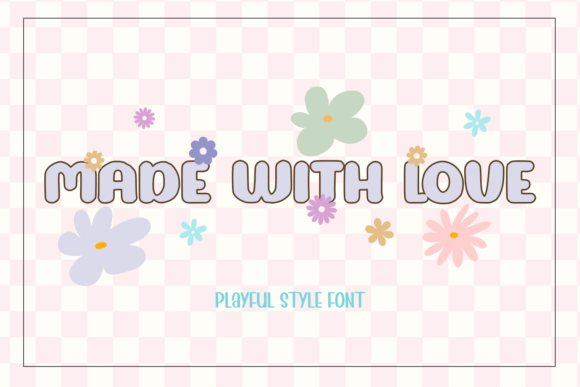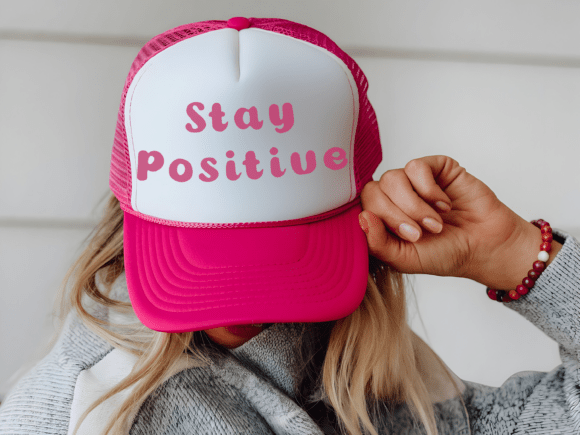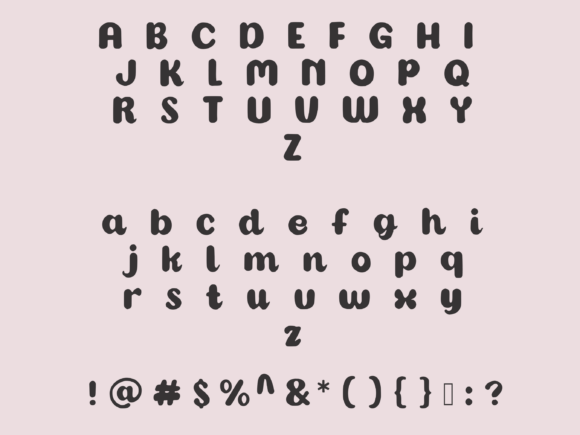
Introducing Cloud Sonata Font: A Groovy Display Font with a Retro Twist
Are you a designer or crafter looking for a font that captures the essence of retro flair and gentle elegance? Look no further than Cloud Sonata Font, an artistic groovy-style display font that’s sure to transport you back to the 1970s. With its rounded, flowing letterforms and whimsical rhythm, Cloud Sonata is the perfect addition to any design project that requires a touch of nostalgia and playfulness.
The Inspiration Behind Cloud Sonata
Cloud Sonata Font is inspired by the iconic album covers of the 1970s, with its psychedelic funk and soft femininity. The font’s creator aimed to capture the essence of hazy sunsets, handwritten love notes scrawled on vinyl sleeves, and the carefree spirit of the era. The result is a font that’s both nostalgic and newly alive, perfect for designers and crafters who want to add a touch of retro charm to their work.
Key Features of Cloud Sonata Font
So, what makes Cloud Sonata Font so special? Here are some of its key features:
- Rounded, flowing letterforms: Cloud Sonata’s letterforms are designed to flow like a gentle stream, with rounded edges that give the font a soft, approachable feel.
- Whimsical rhythm: The font’s rhythm is playful and whimsical, with a touch of psychedelic funk that adds to its retro charm.
- Retro flair: Cloud Sonata is inspired by the iconic designs of the 1970s, making it perfect for designers and crafters who want to add a touch of nostalgia to their work.
- Gentle elegance: Despite its playful nature, Cloud Sonata also has a touch of gentle elegance, making it suitable for a wide range of design projects.
Uses for Cloud Sonata Font
Cloud Sonata Font is a versatile display font that can be used for a wide range of design projects, including:
- Branding and logos: Add a touch of retro charm to your brand’s logo or marketing materials.
- Posters and flyers: Create eye-catching posters and flyers that capture the essence of the 1970s.
- Social media graphics: Add a touch of personality to your social media graphics with Cloud Sonata’s playful, whimsical design.
- Crafting and DIY projects: Use Cloud Sonata to add a personal touch to your crafting and DIY projects, such as handmade cards, gift tags, and scrapbooking.
Tips for Using Cloud Sonata Font
Here are some tips for getting the most out of Cloud Sonata Font:
- Experiment with colors: Cloud Sonata looks great in a range of colors, from bright and bold to soft and pastel.
- Play with textures: Add texture to your design with Cloud Sonata’s playful, handwritten feel.
- Mix and match: Combine Cloud Sonata with other fonts and design elements to create a unique, eye-catching look.
Cloud Sonata Font is a unique and artistic display font that’s perfect for designers and crafters who want to add a touch of retro flair and gentle elegance to their work. With its rounded, flowing letterforms and whimsical rhythm, Cloud Sonata is sure to transport you back to the 1970s. Whether you’re working on a branding project, creating social media graphics, or crafting handmade cards, Cloud Sonata is the perfect addition to your design toolkit.